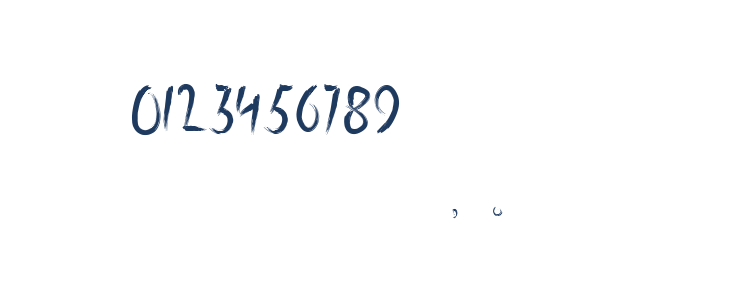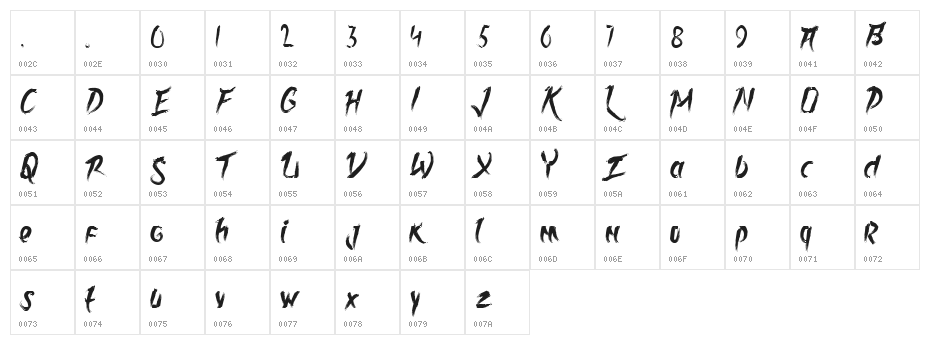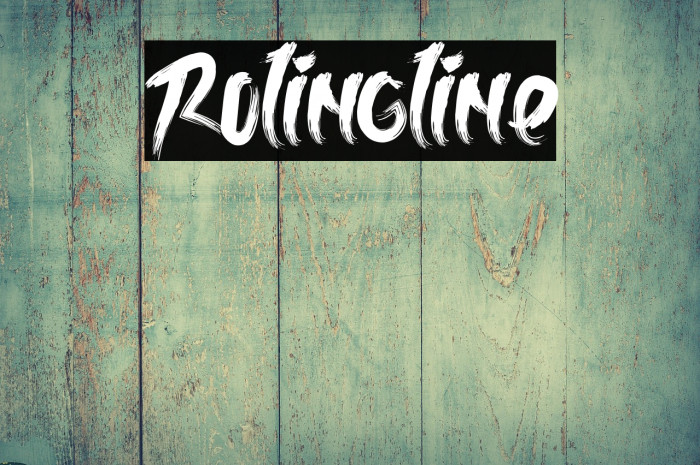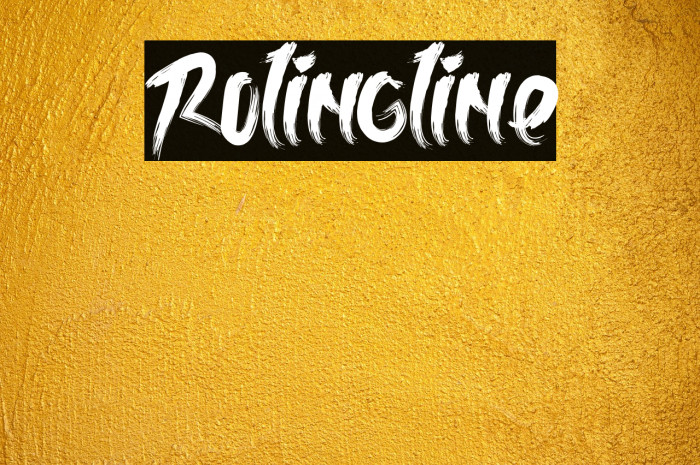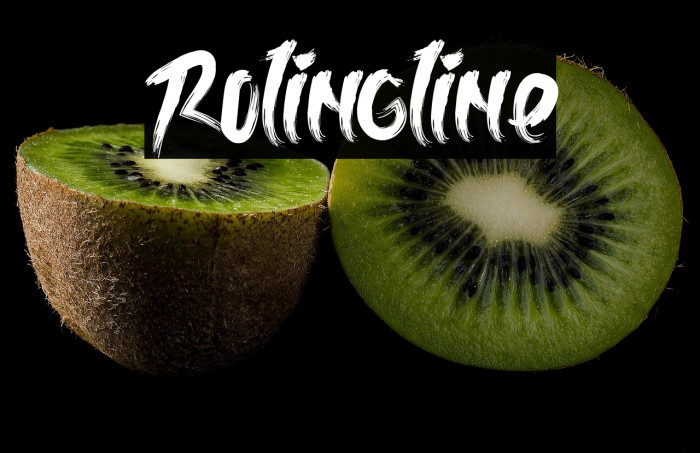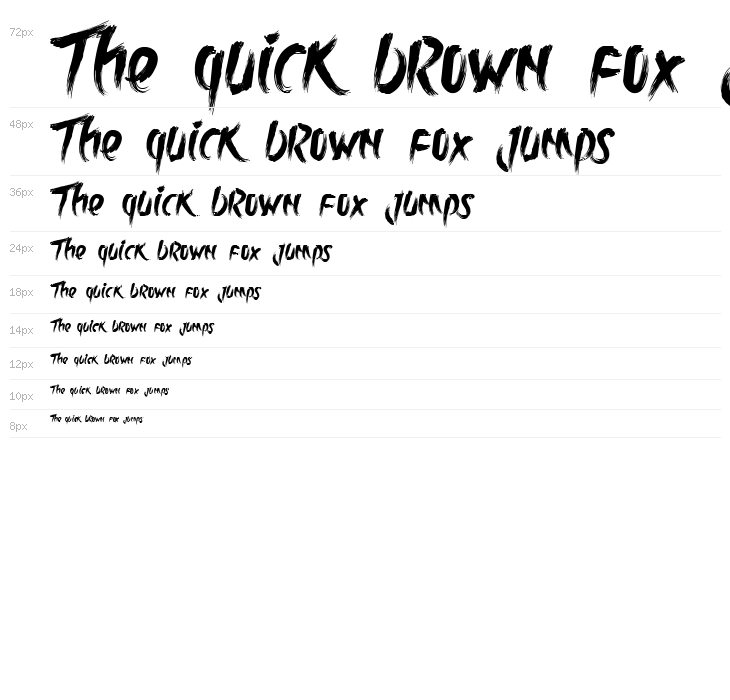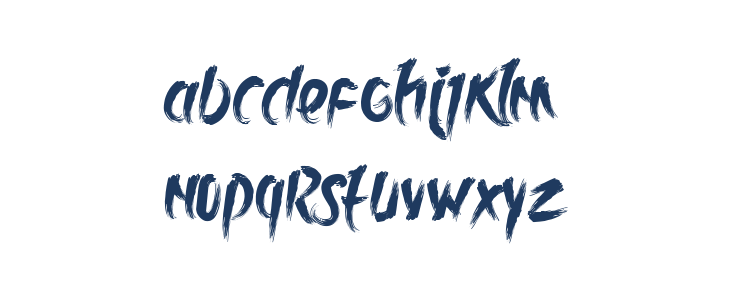
Rolingline Font
Rolingline Description
This font exhibits a dynamic and expressive brush style, characterized by bold, sweeping strokes that convey a sense of movement and energy. The letters have an irregular, hand-painted appearance, with varying stroke thicknesses that add to its artistic flair. The uppercase and lowercase letters maintain a consistent style, while the numerals and special characters complement the overall aesthetic. This font's unique, artistic quality makes it stand out, offering a visually striking option for creative projects.
| Use Case | Logos, Posters, Creative Headlines |
| Proposed Projects | Ideal for artistic projects, posters, branding, and any design requiring a bold, creative touch. |